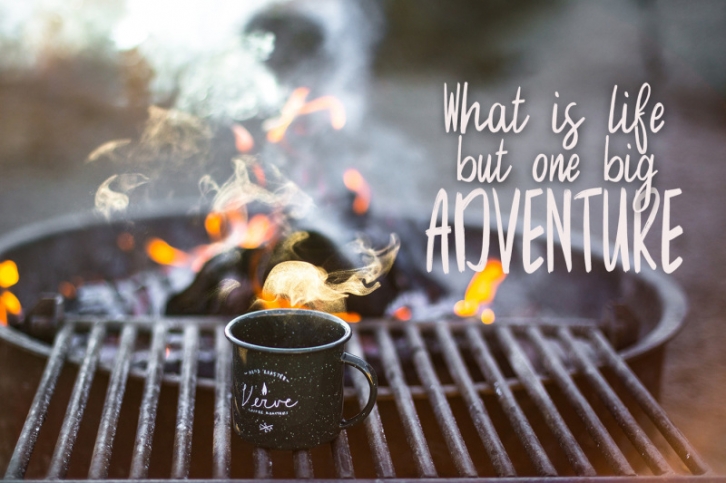
Introducing Wild Forest a handwritten brush font. Perfect for Menu cards, Branding projects, Quotes Logo's, Posters, Packaging, Invites, Flyers, and any other designs. YOU WILL RECEIVE: